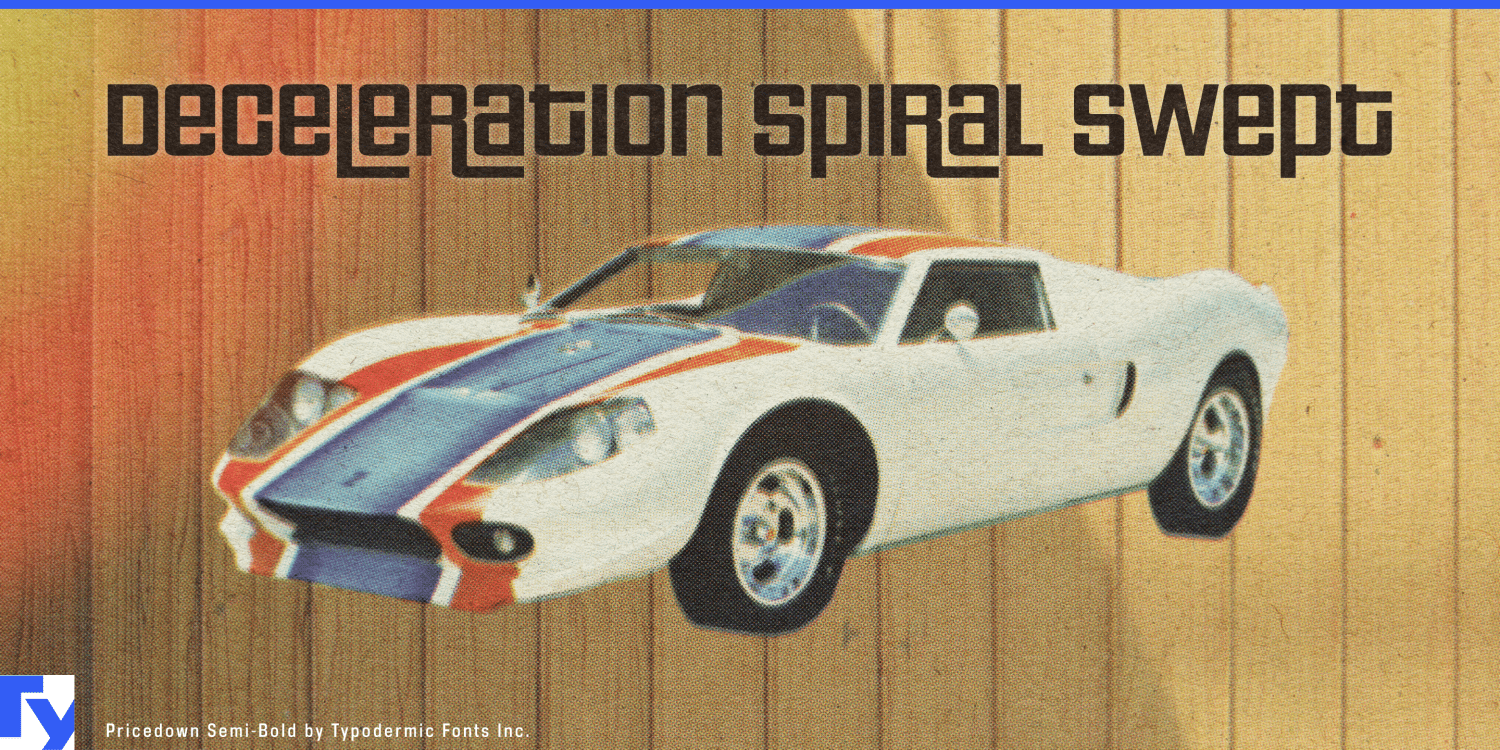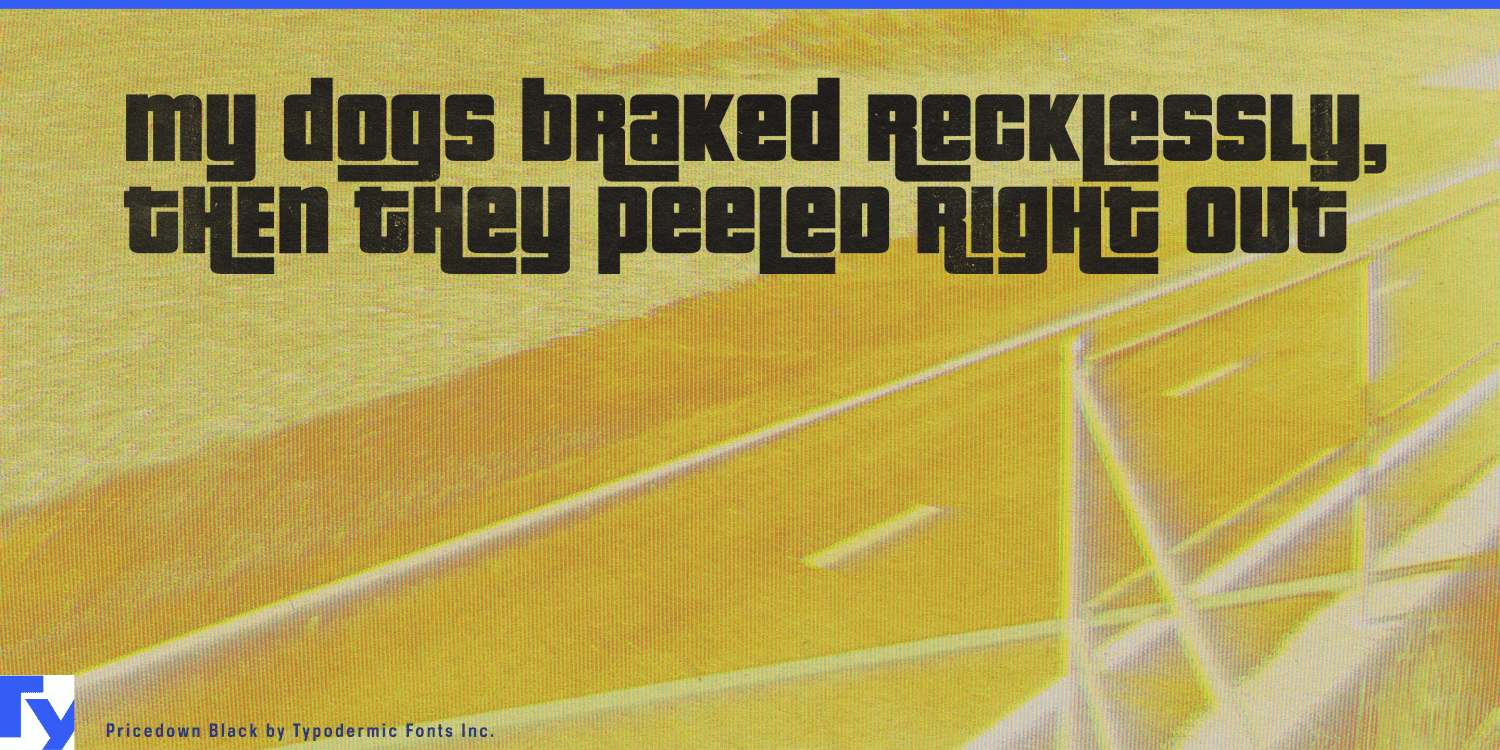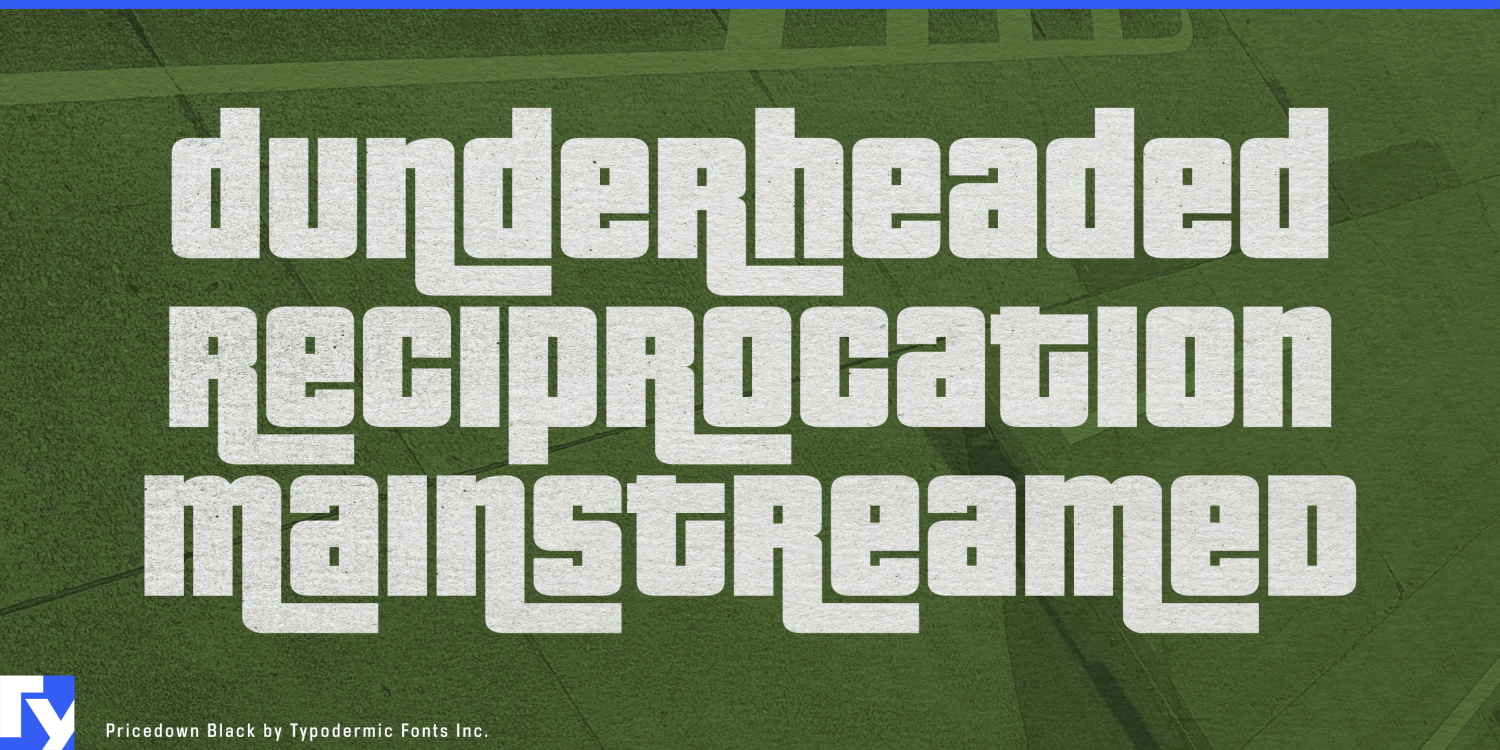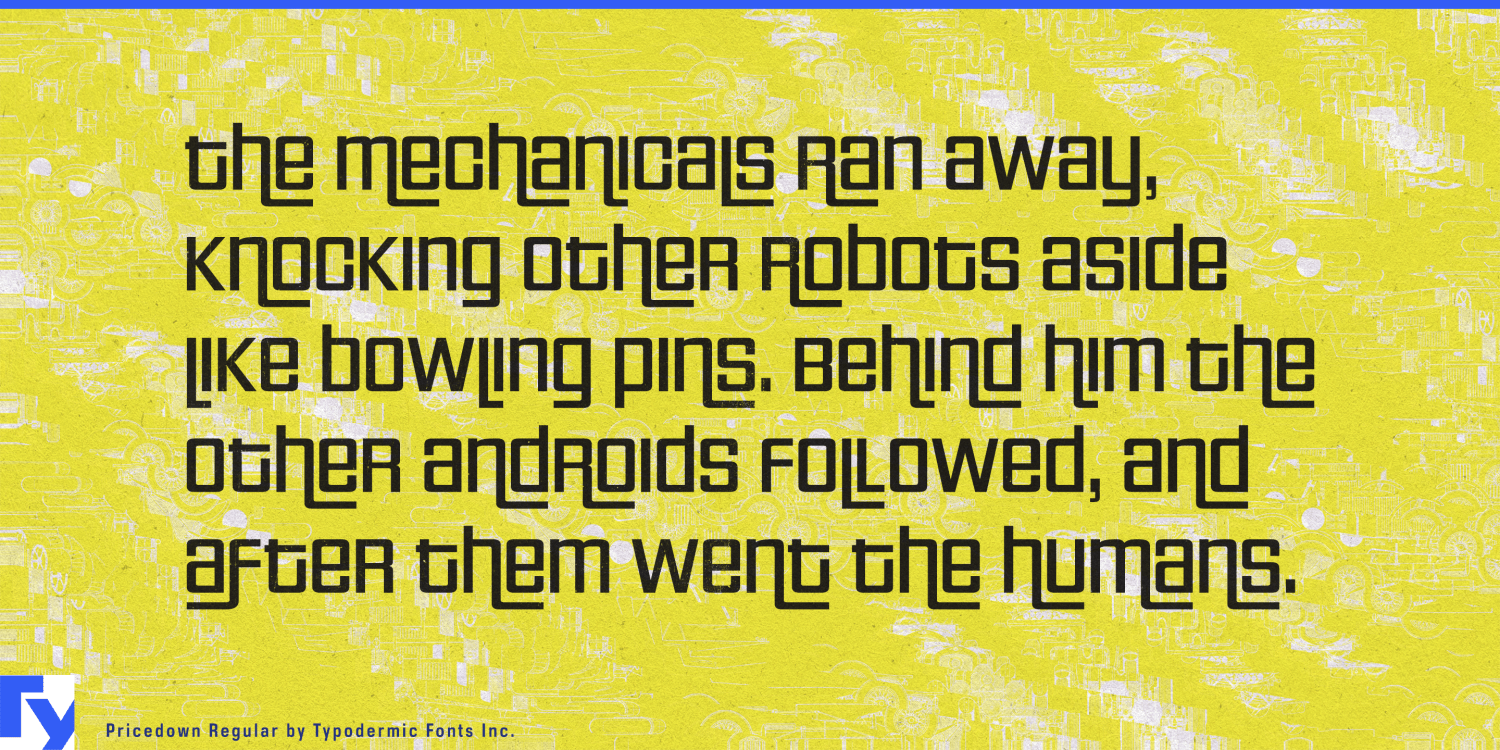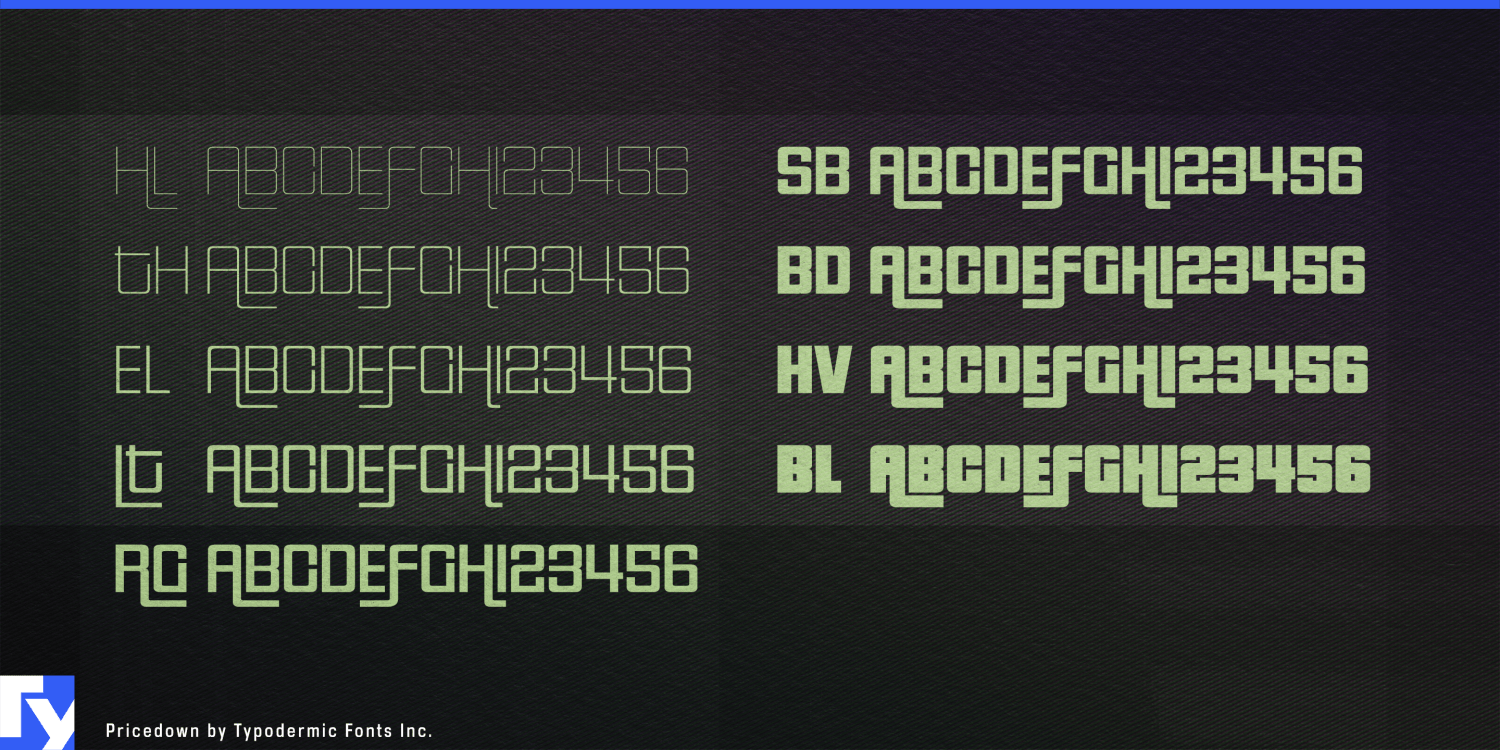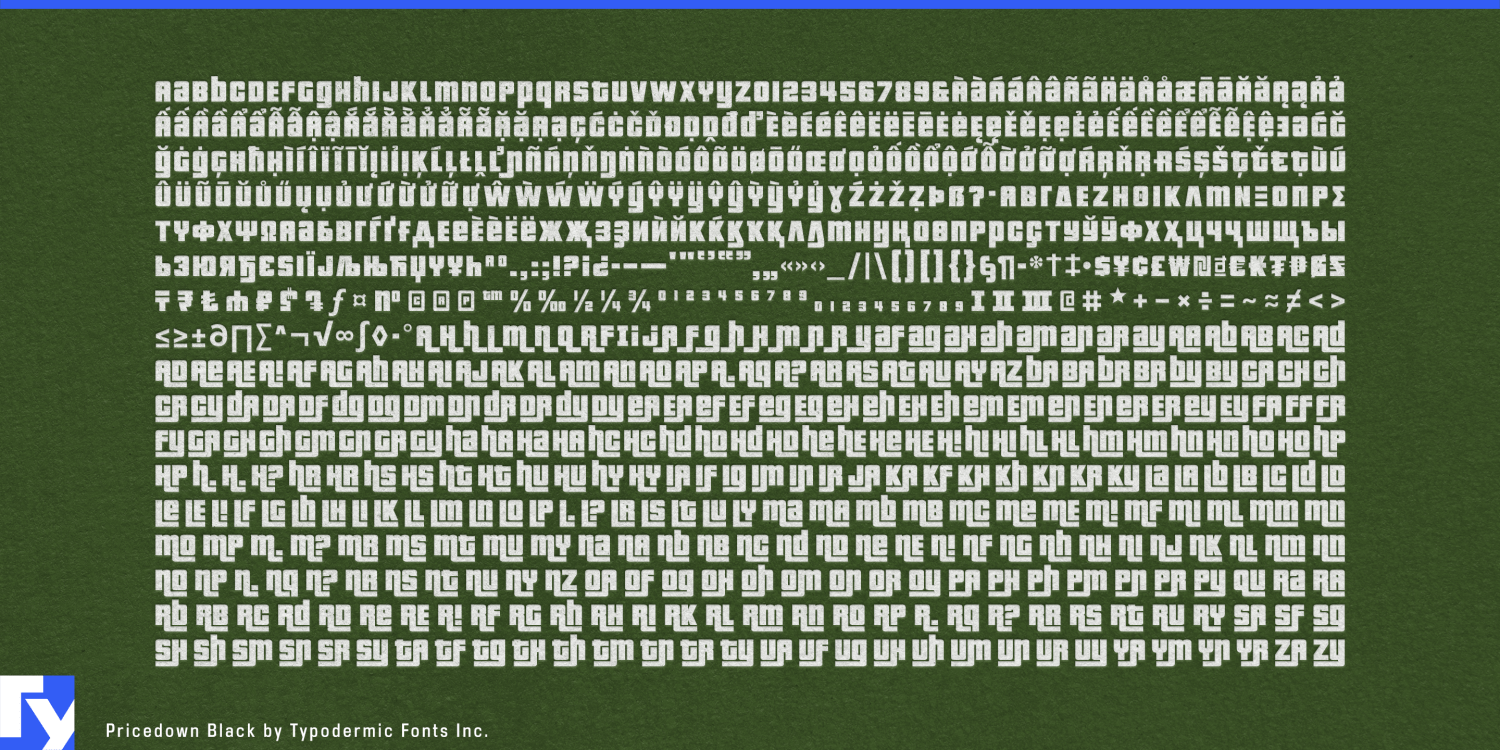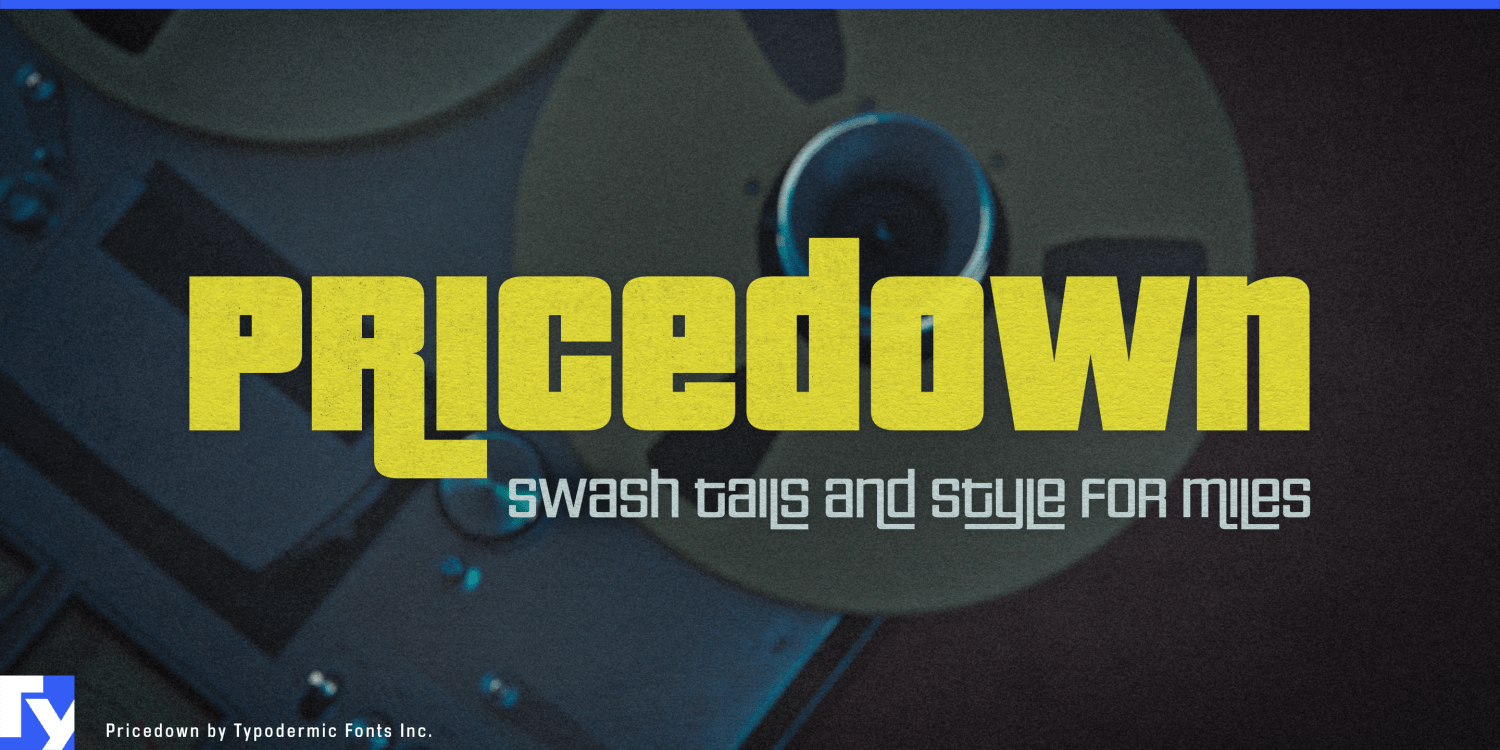
Pricedown
About Pricedown
Step right up, folks! Pricedown is more than just a typeface—it’s a time machine disguised as letters, ready to transport your designs back to the golden age of game shows and arcade thrills. Pricedown struts onto your screen with all the…